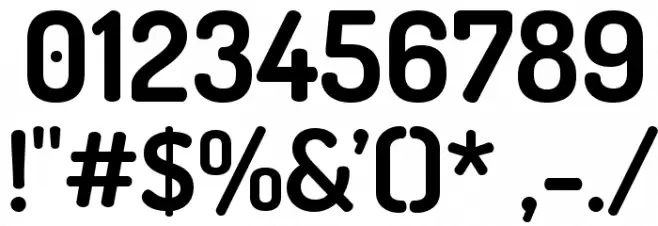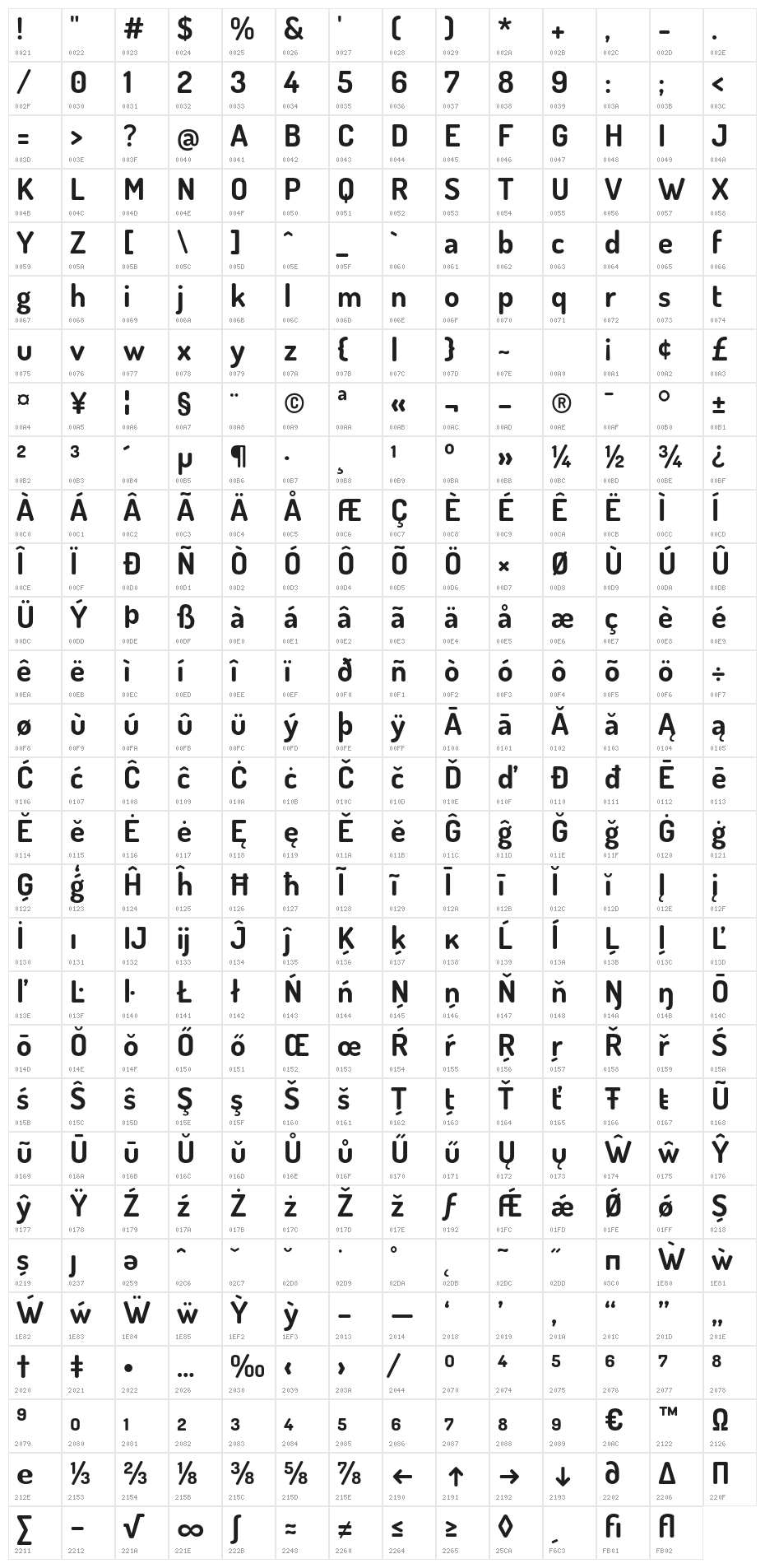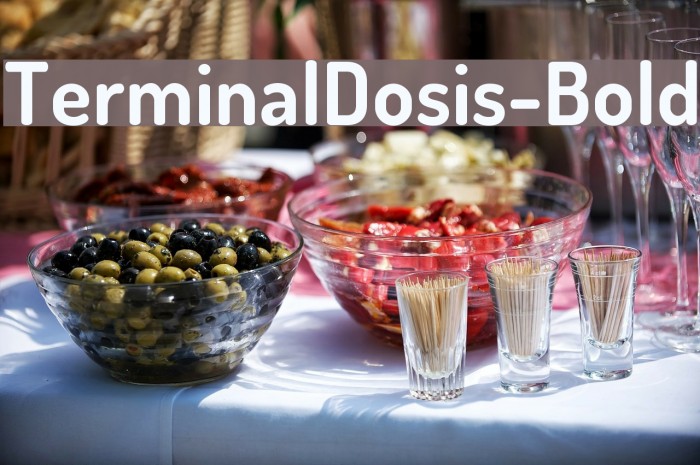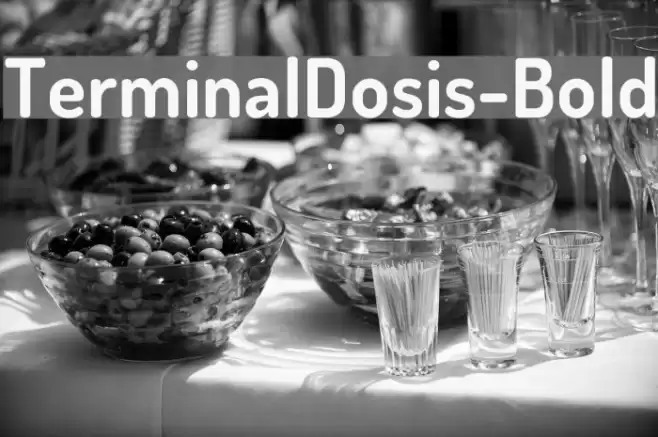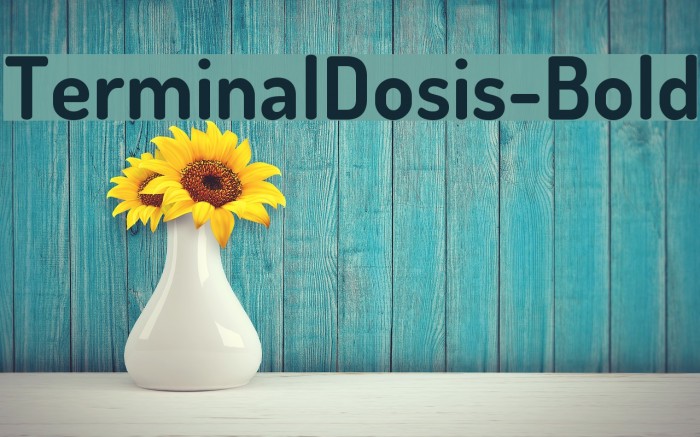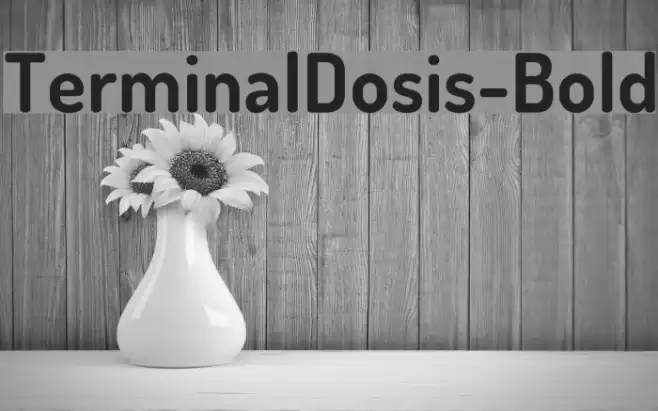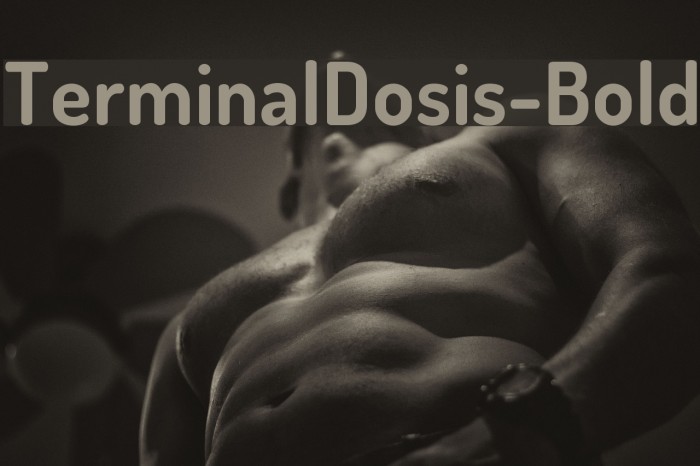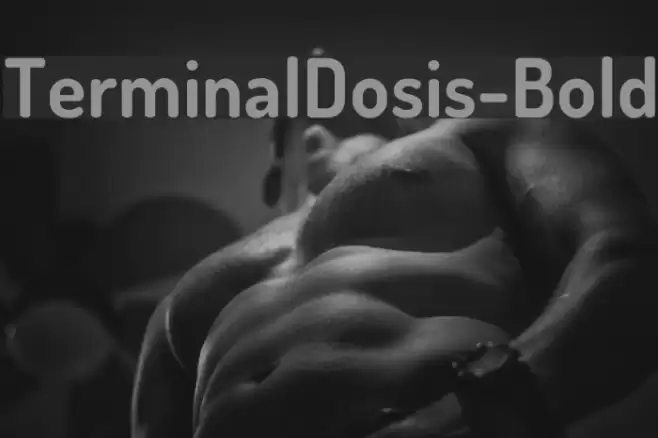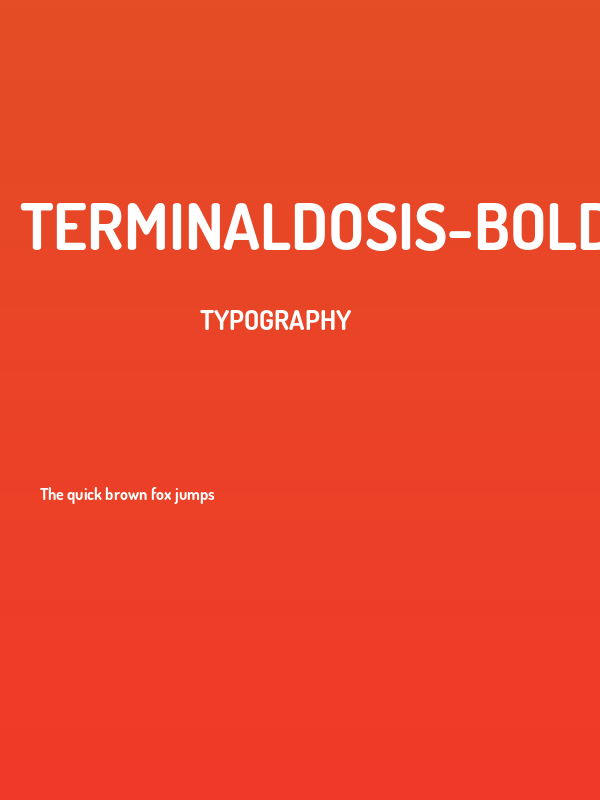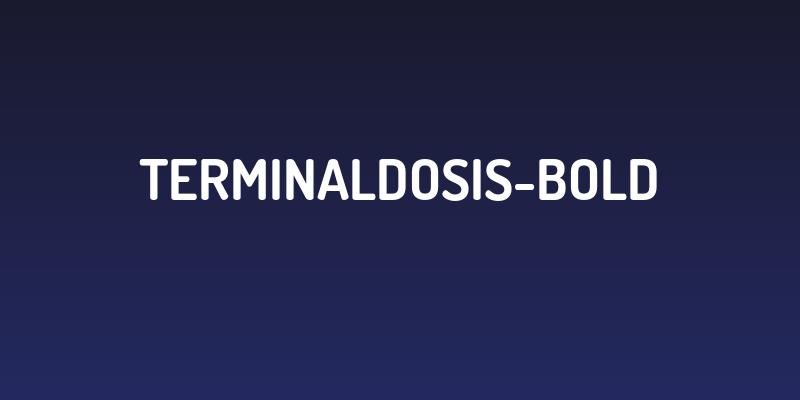
TerminalDosis-Bold Font
TerminalDosis-Bold Description
This font features a clean, rounded sans-serif style with a modern and friendly appearance. The characters are bold and have a uniform stroke width, contributing to a strong and confident look. The rounded edges soften the overall feel, making it approachable and versatile. The uppercase and lowercase letters maintain a consistent height ratio, ensuring readability and balance. The numerals are clear and distinct, while the special characters are well-integrated, enhancing the font's utility across various applications.
| Use Case | Headlines, Logos, Digital Interfaces |
| Proposed Projects | Ideal for branding, advertising, headlines, and digital interfaces where a modern and approachable look is desired. |